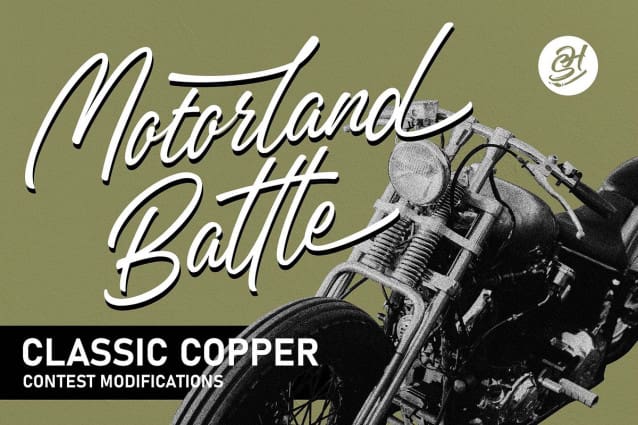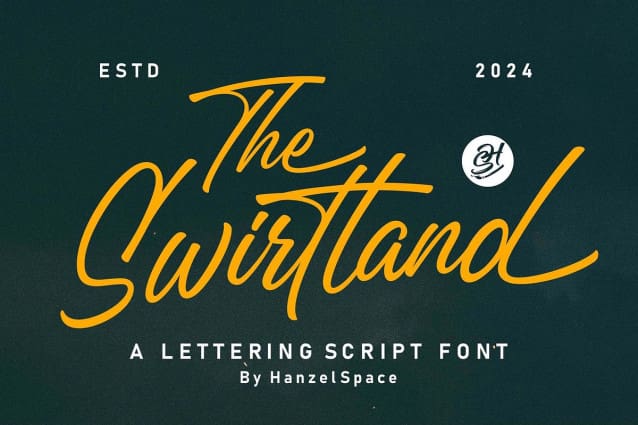
The Swirtland Font
The Swirtland Font. Made with a touch of personality on every curve of the letter anatomy. I hope this can inspire you in your work. and help you design your work. Equipped with a very practical bonus Swash set. Ideal for logos, handwritten quotes, product packaging, headers, posters, merchandise, social media & greeting cards.